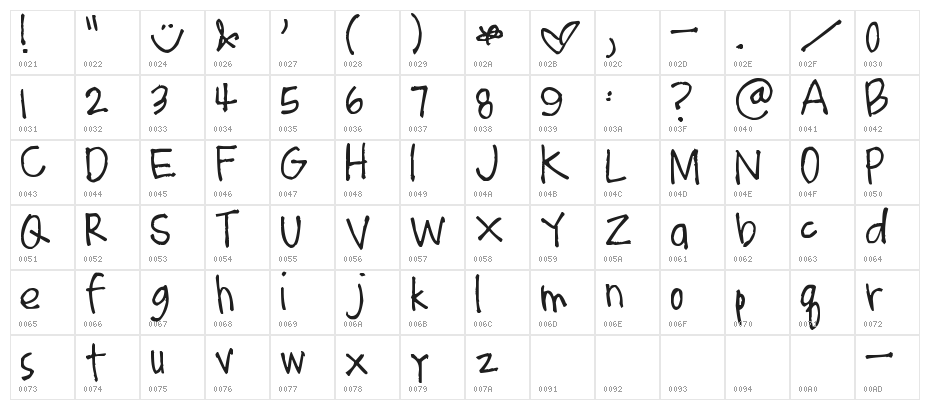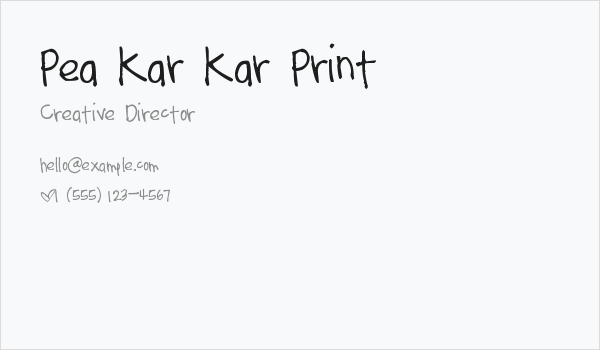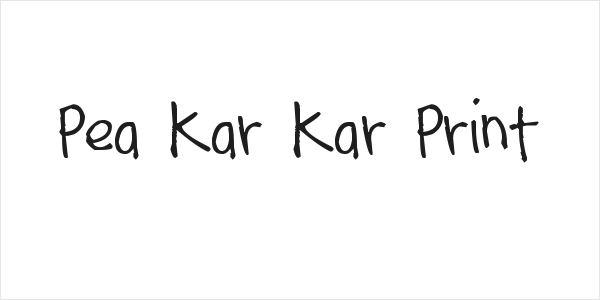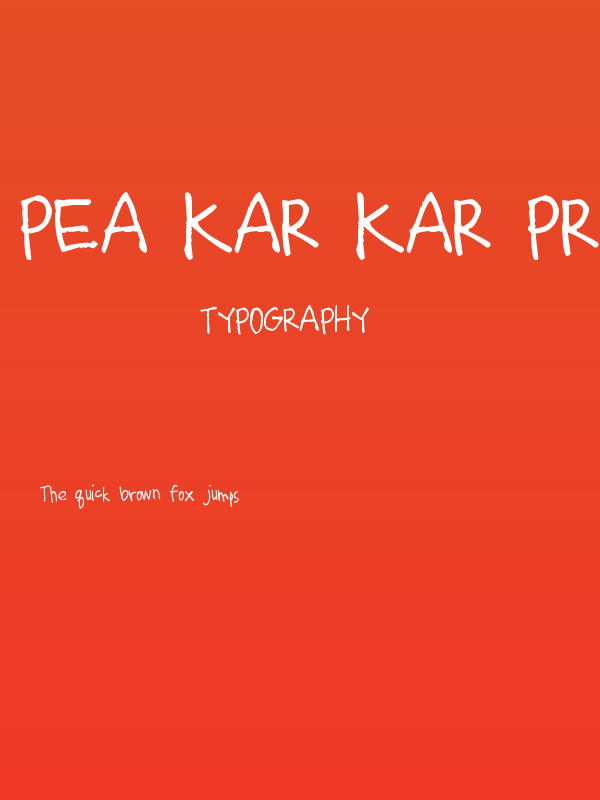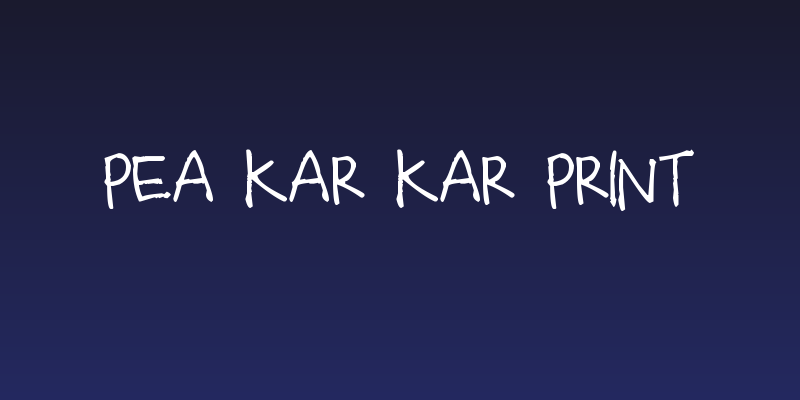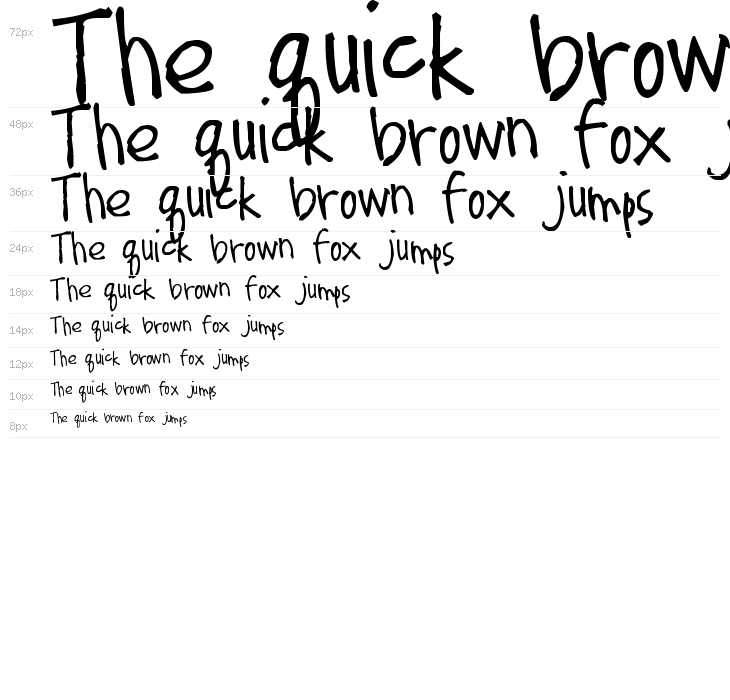
Pea Kar Kar Print Font
Pea Kar Kar Print Description
This font exudes a playful and casual handwritten style, characterized by its irregular and slightly uneven strokes that mimic the natural flow of handwriting. The letters are bold and expressive, with a quirky charm that adds personality to any text. The uppercase and lowercase letters maintain a consistent style, while the numbers and special characters complement the overall aesthetic. The font's informal nature makes it ideal for projects that require a personal touch, such as greeting cards, invitations, or creative branding materials.
| Proposed Projects | Ideal for greeting cards, invitations, personal branding, and creative projects. |